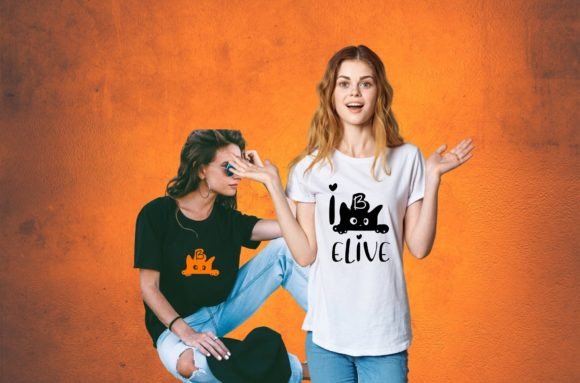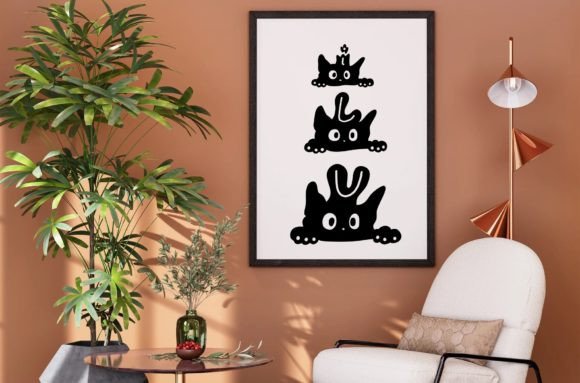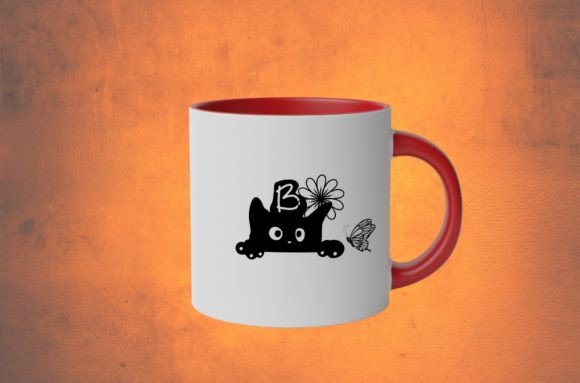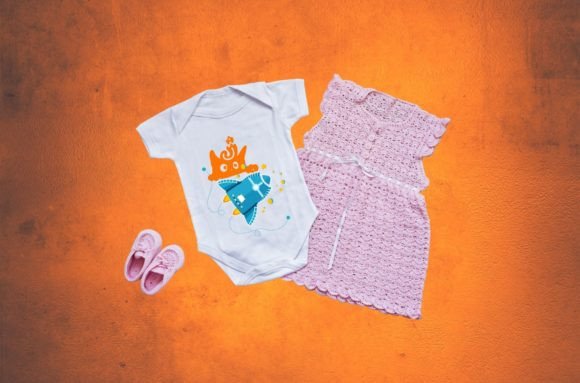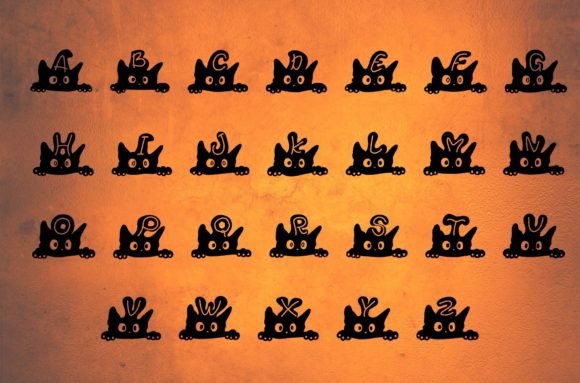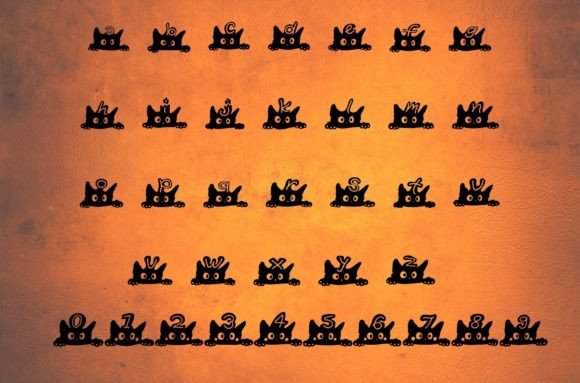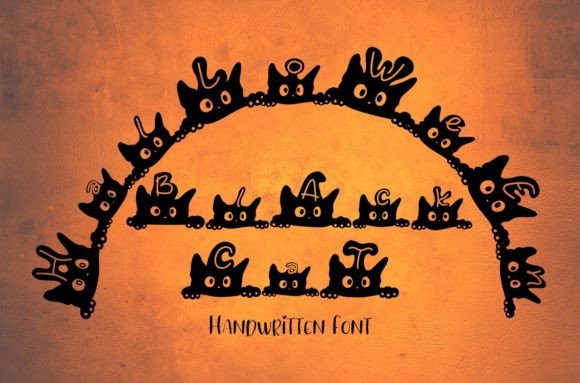
Unleash the Spooky Spirit with Halloween Black Cat Font
As the spookiest time of the year approaches, designers and crafters are on the lookout for the perfect typography to add a touch of eerie elegance to their creations. Look no further than the Halloween Black Cat Font, a display font that is purr-fect for a wide range of design projects. In this article, we’ll dive into the features and benefits of this versatile font, and explore how it can bring your creative ideas to life.
What is Halloween Black Cat Font?
Halloween Black Cat Font is a display font designed specifically for creative projects that require a bold and eye-catching typography. Its unique design is inspired by the mysterious and magical world of Halloween, making it an ideal choice for designers and crafters who want to add a touch of spookiness to their work.
This font comes with a range of features that make it perfect for various design projects. Some of its key benefits include:
- Versatility: Halloween Black Cat Font is perfect for logos, branding, wedding invitations, business cards, greeting cards, posters, magazines, social media, planner prints, and websites.
- Creativity booster: This font is especially useful for children’s designs, t-shirts, mugs, posters, and more, allowing designers and crafters to add a touch of whimsy and fun to their creations.
- High-quality design: The font is designed with high-quality graphics, ensuring that it looks great in any design project.
Halloween Black Cat Font is a must-have for designers and crafters who want to create unique and eye-catching designs. Whether you’re working on a children’s book, a t-shirt design, or a social media post, this font is sure to add a touch of magic to your creations.
Tips for Using Halloween Black Cat Font
To get the most out of Halloween Black Cat Font, here are some tips to keep in mind:
- Experiment with different sizes: This font looks great in large and small sizes, so don’t be afraid to experiment with different sizes to find the perfect fit for your design.
- Pair with other fonts: Halloween Black Cat Font pairs well with other fonts, so try combining it with a script font or a sans-serif font to create a unique look.
- Add a personal touch: Use Halloween Black Cat Font to add a personal touch to your designs, such as a custom logo or a handwritten message.
Inspiration for Your Designs
Here are some ideas to get you started:
- Halloween-themed designs: Use Halloween Black Cat Font to create spooky and fun designs for Halloween, such as party invitations, trick-or-treat bags, and Halloween-themed social media posts.
- Children’s designs: This font is perfect for children’s designs, such as book covers, activity sheets, and kids’ party invitations.
- Wedding and event designs: Add a touch of whimsy to your wedding and event designs, such as invitations, programs, and place cards.